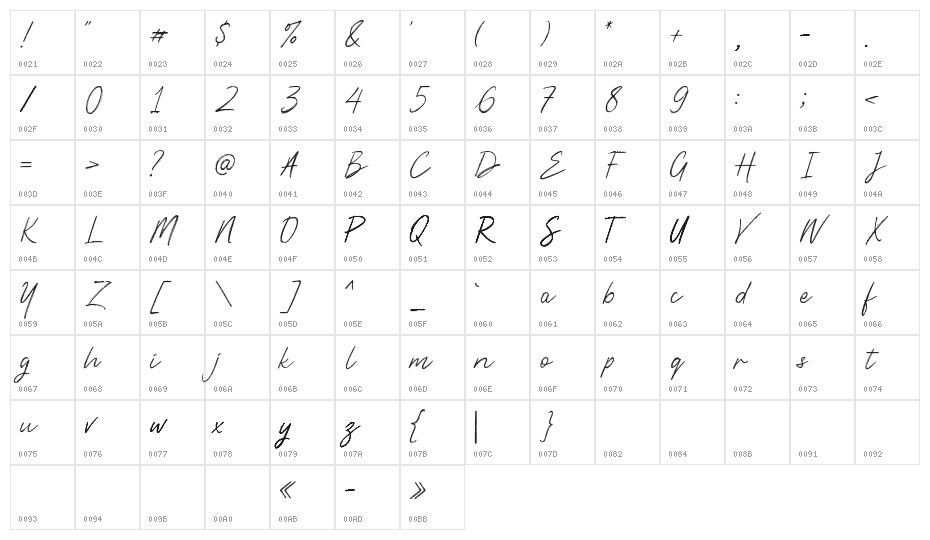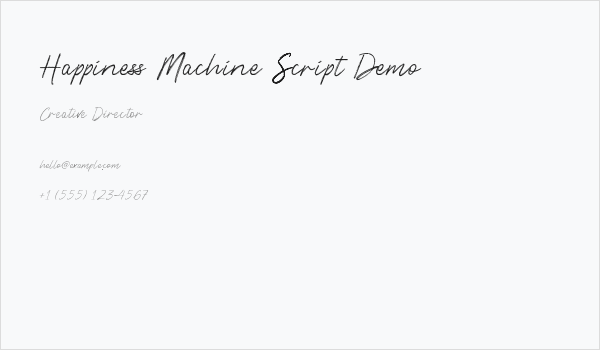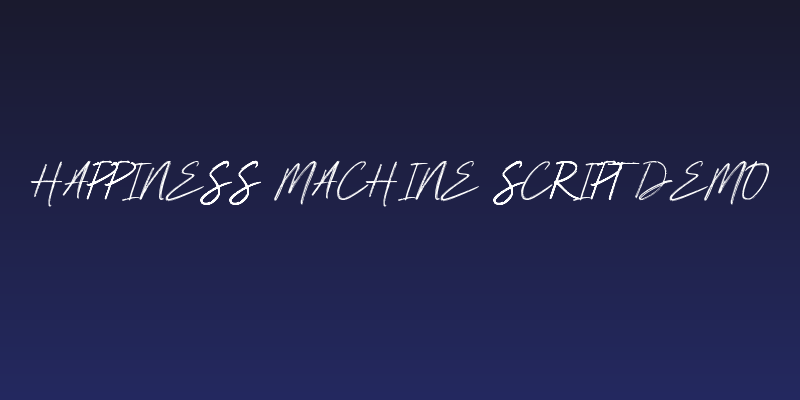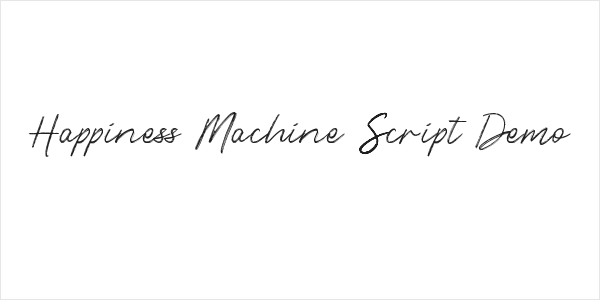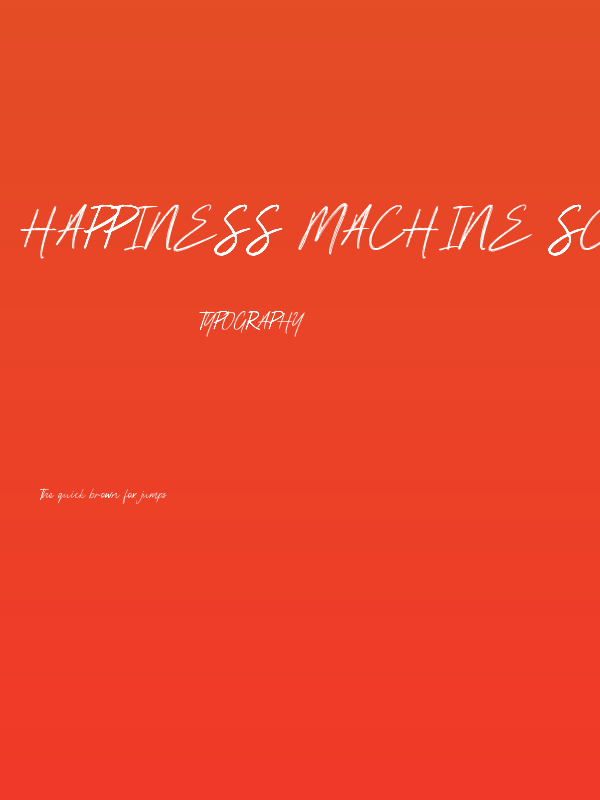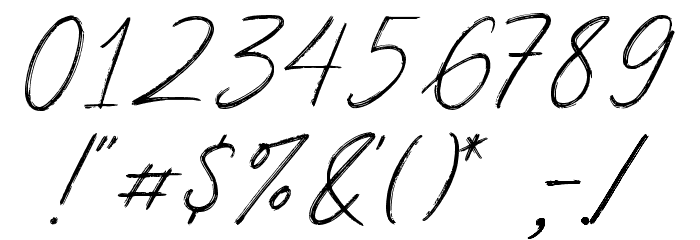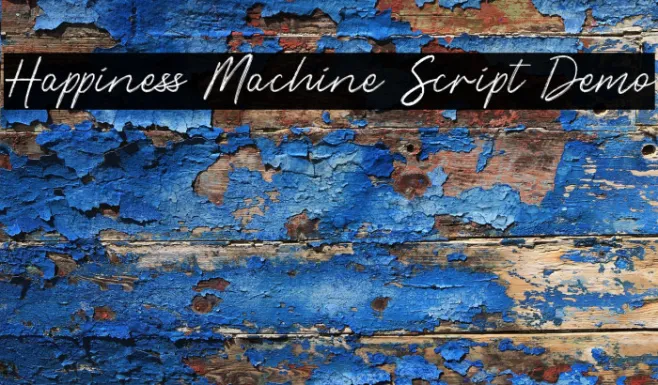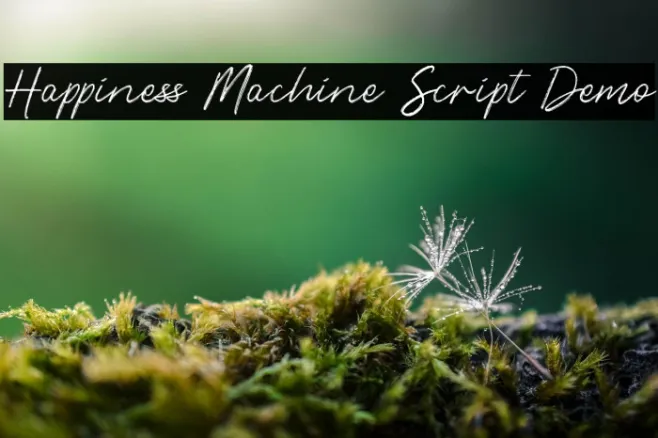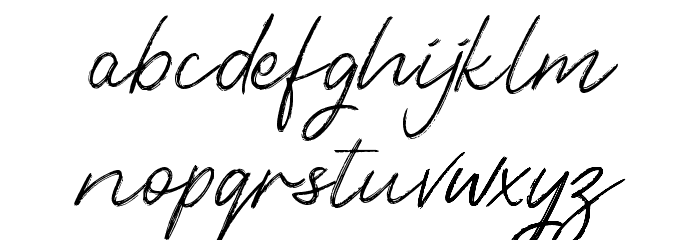
Happiness Machine Script Demo Font
Happiness Machine Script Demo Description
This font exudes a lively and dynamic energy with its fluid, cursive script style. The letters are elegantly connected, creating a sense of movement and flow. The strokes vary in thickness, adding a natural, handwritten feel. The uppercase letters are bold and expressive, while the lowercase letters maintain a graceful continuity. Numbers and special characters are crafted with the same attention to detail, ensuring consistency throughout. This font is perfect for projects that require a personal touch or a creative flair.
| Use Case | Logos, Invitations, Creative projects |
| Proposed Projects | Ideal for wedding invitations, greeting cards, personal branding, and creative projects. |